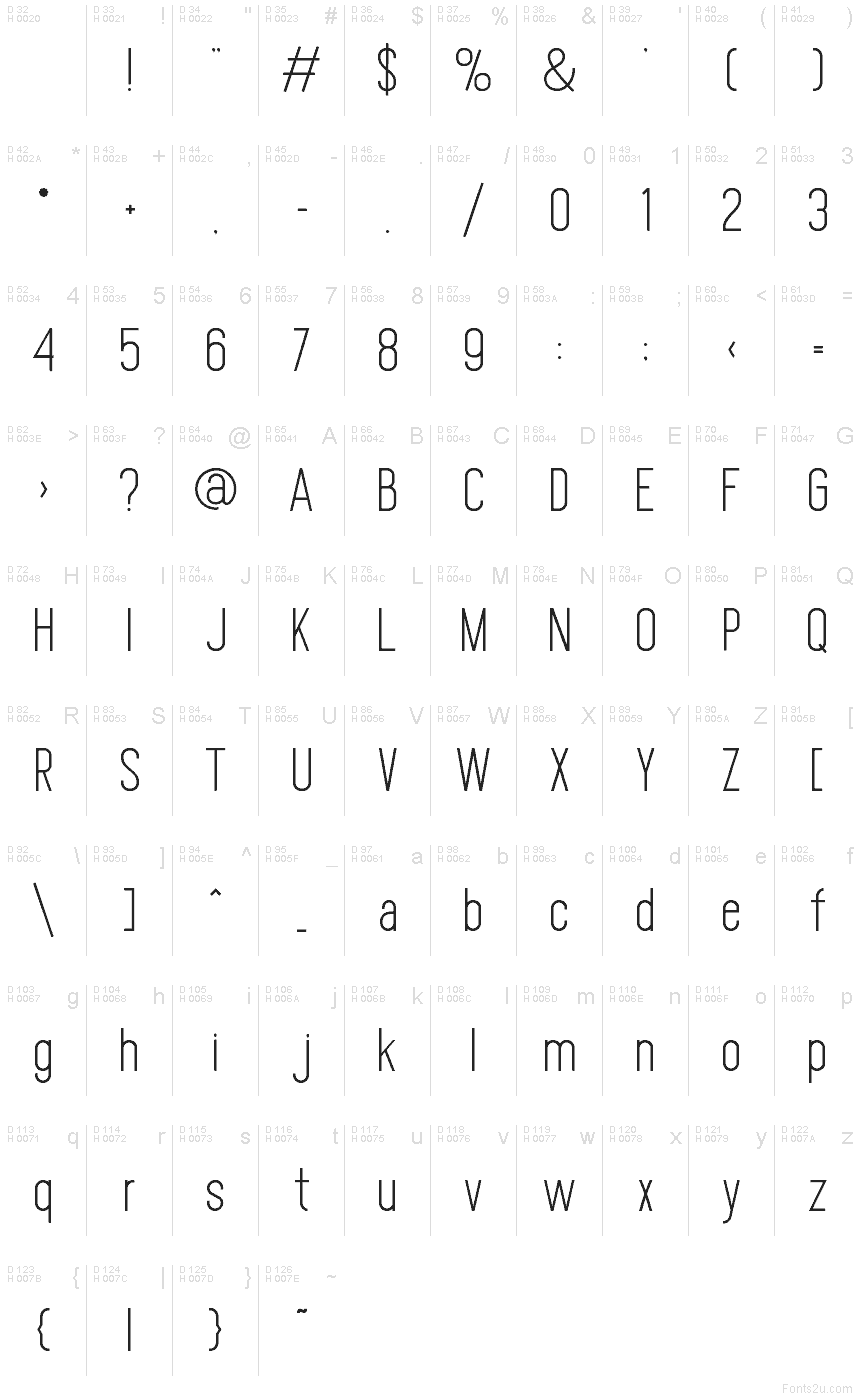
Rolever
Rolever font by PutraCetol Studio is a light, condensed sans-serif font. It preserves clean lines for a geometric, minimalistic style with a contemporary aesthetic. The modern role it plays gives any project cleaner and more legible texts.